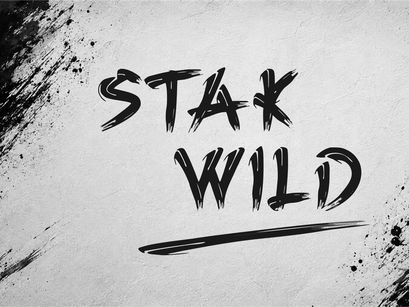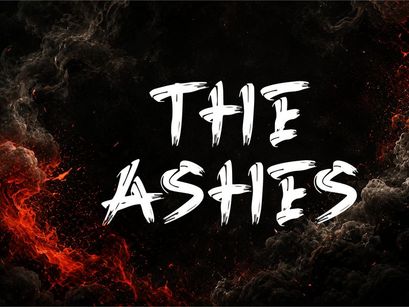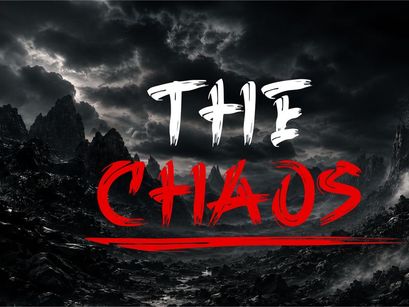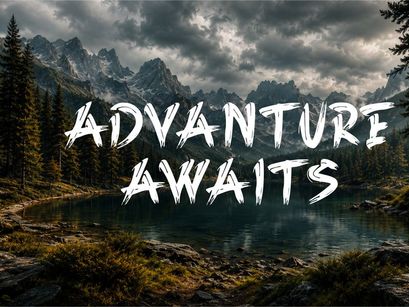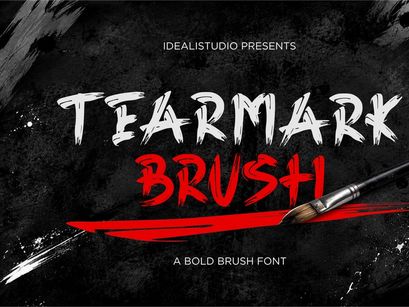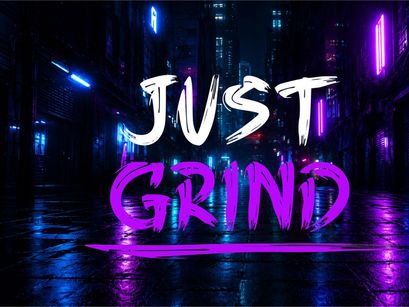
Tearmark Brush – Bold Grunge Brush Font
Tearmark Brush is a bold and expressive grunge brush font designed to bring raw energy, rebellious character, and handcrafted impact to your designs. Featuring rough brush strokes, distressed edges, and dynamic letterforms, this display typeface creates a powerful street-inspired aesthetic with an authentic hand-painted feel.
Perfect for posters, album covers, band artwork, streetwear branding, logos, merchandise, packaging, social media graphics, advertising, sports designs, and edgy headlines. Tearmark Brush works especially well when you want typography that feels aggressive, energetic, artistic, and unapologetically bold.
Make a strong visual statement with Tearmark Brush — a versatile brush font built for designs that demand attention.